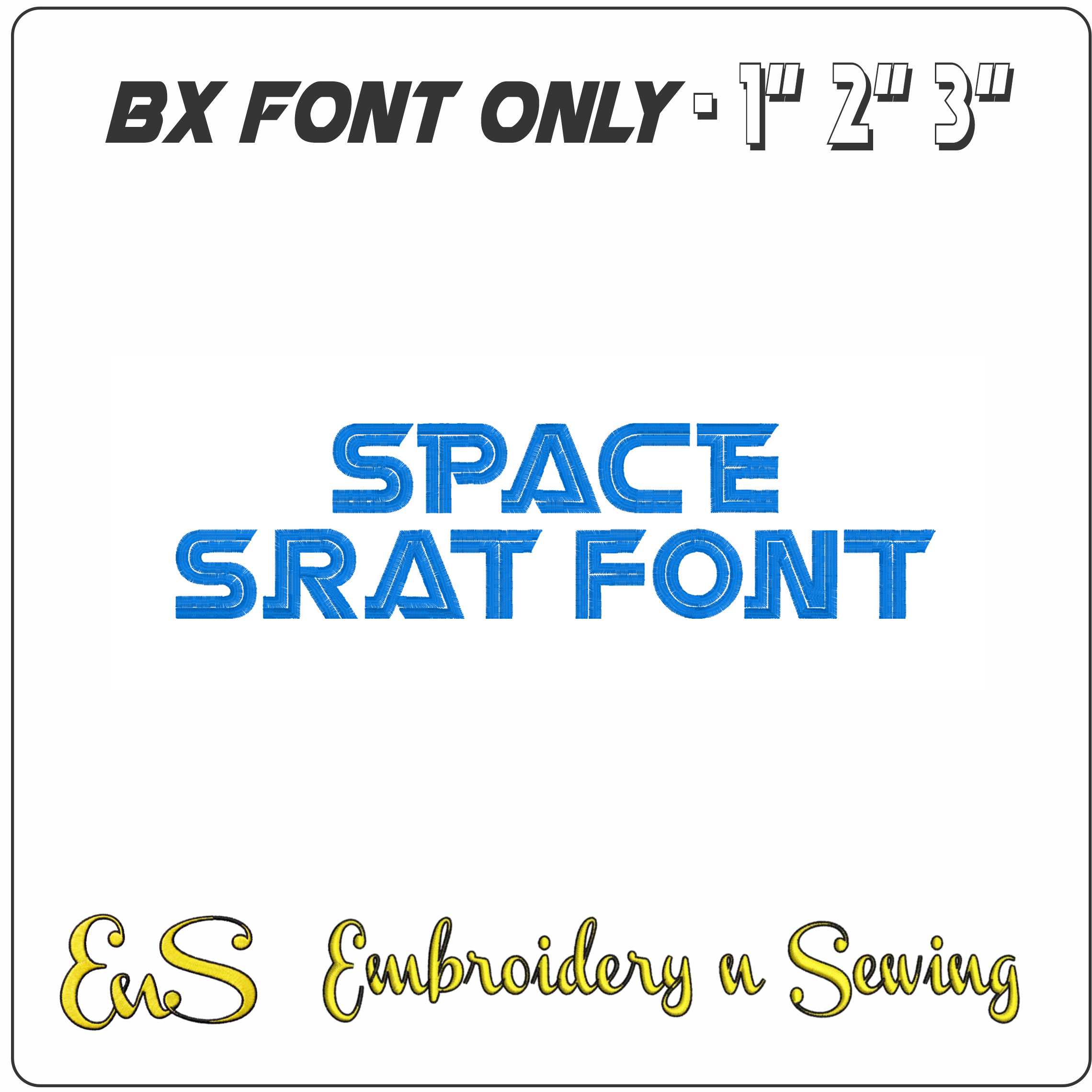
Space Star Font
Give names and slogans a sleek sci-fi edge with this bold blue outlined font in sharp, futuristic block lettering.
Add sleek sci-fi style to names, initials and short phrases with this Space Star Font. The lettering is built from bold blue block shapes with angular cuts and a clear outline, giving each character a crisp futuristic look without losing readability. It suits space-themed projects, gaming-inspired makes and anyone who wants text that feels clean, graphic and modern.
This style works especially well on hoodie fronts, sweatshirt backs, kit bags, pencil cases and quilt labels where you want wording to stand out rather than blend in. The outlined construction keeps the letters visually neat on plainer fabrics such as cotton, denim and stable sweatshirt fleece. With the design offered in smaller sizes, it is a good fit for compact placements like chest text, sleeve details or the corner of a tote.